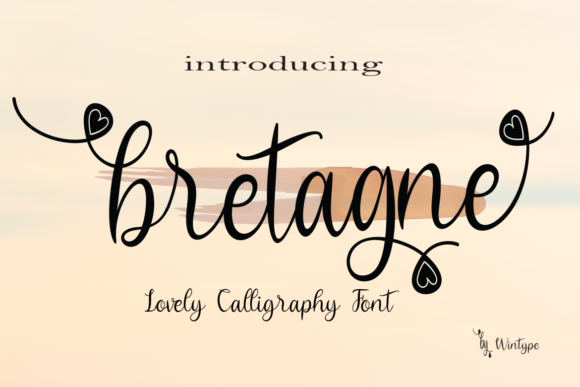
Unleash the Elegance: Discover the Allure of Bretagne Font
Have you ever sat at your desk, staring blankly at a blank page, searching for the perfect font to match the beauty of your design? That’s exactly where I was, until I stumbled upon the enchanting Bretagne Font. Its delicate curves and elegant flair instantly captured my attention, transporting me to a world of refined sophistication.
Bretagne Font is a masterfully crafted handwritten font, designed to add a touch of personalization to your designs. Whether it’s a wedding invitation, a thank you card, or a logo, this font effortlessly elevates your creations to the next level. With its PUA encoding, accessing the intricate glyphs and swashes is a breeze, allowing designers to tap into its full potential.
For designers seeking a unique and refined look, Bretagne Font is a valuable asset. Its versatility and beauty make it an ideal choice for a wide range of projects, from weddings and greeting cards to logos and more.
Bretagne Font Key Features
- Font Size: The font family includes multiple weights, ranging from Thin (100) to Extra Bold (800), providing flexibility for various design purposes.
- Resolution: The Bretagne Font is designed for use at high resolutions, making it ideal for printing and digital applications where clarity is essential.
- Unique Characteristics: The font features a unique, hand-crafted aesthetic with subtle irregularities, giving it a distinctive, human touch that sets it apart from more uniform fonts.
- Language Support: The Bretagne Font includes comprehensive language support, covering Latin-based languages, Cyrillic, and Greek, making it suitable for global design projects.
- Kerning and Ligatures: The font includes carefully crafted kerning and ligatures, ensuring smooth text rendering and enhancing readability, particularly in long blocks of text.
Bretagne Font Review
The Bretagne Font is a beautiful, elegant script font that’s perfect for creating a sophisticated and high-end look in your designs. ✨ The font’s refined lines, subtle curves, and flowing connections make it ideal for use in invitations, branding, and other applications where a touch of luxury is desired. ✨ The font’s versatility also makes it suitable for use in a variety of contexts, from fashion and beauty to fine dining and wine.
However, there are some limitations to consider. ⚠️ The font’s complexity can make it difficult to use at small font sizes, and the flowing connections between letters can sometimes lead to readability issues. Additionally, the font’s high-end feel may not be suitable for more casual or playful designs. ⚠️
Overall, the Bretagne Font is a great choice for designers who want to add a touch of sophistication and elegance to their work. With its beautiful lines, subtle curves, and refined connections, it’s sure to impress. However, it’s worth considering the potential limitations and using it judiciously to avoid readability issues.
- Best suited for high-end designs, such as fashion, beauty, and fine dining
- May not be suitable for casual or playful designs
- Can be difficult to read at small font sizes
- May require adjustments to spacing and alignment to maintain readability
Use the Bretagne font for elegant, sophisticated designs, such as wedding invitations, luxury product packaging, or high-end branding materials. Experiment with different font sizes, colors, and styles to create a unique look.
The Bretagne font is suitable for a wide range of design projects, including: